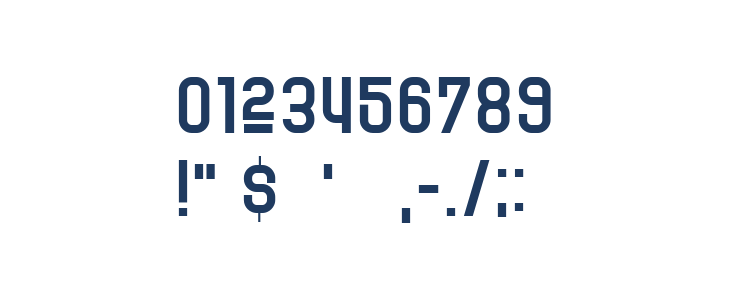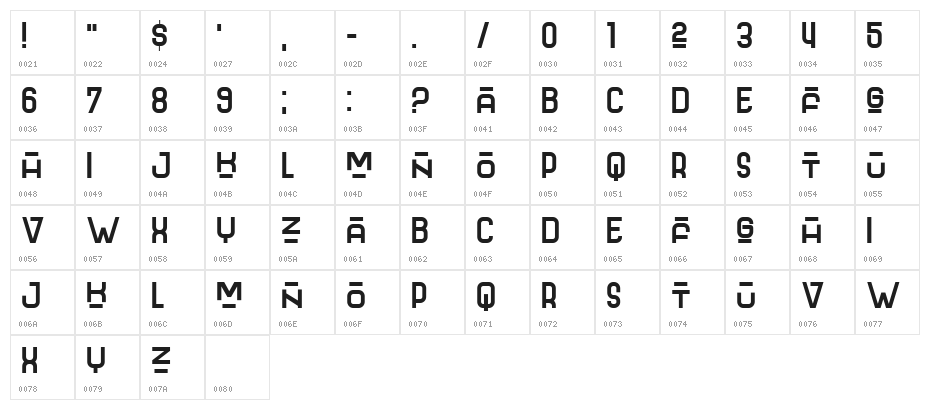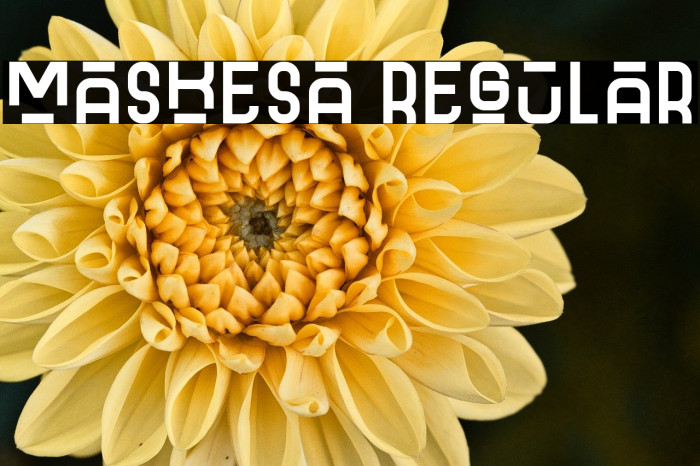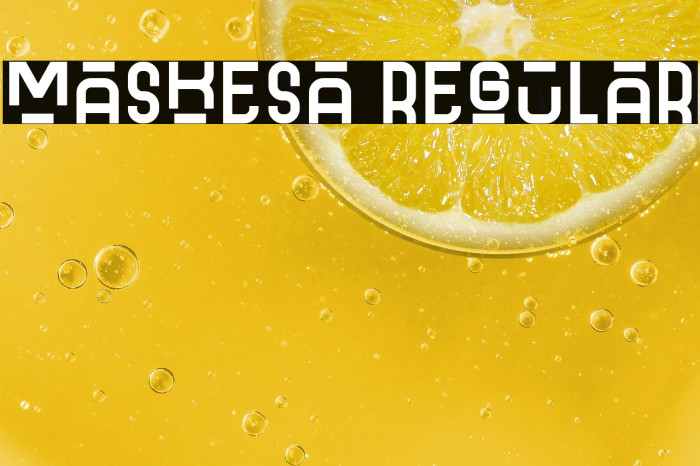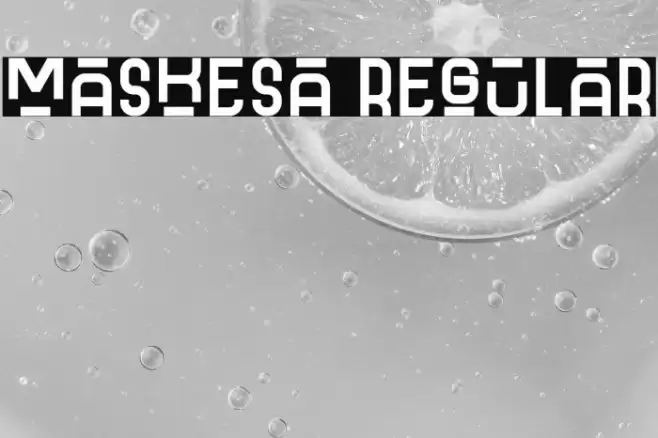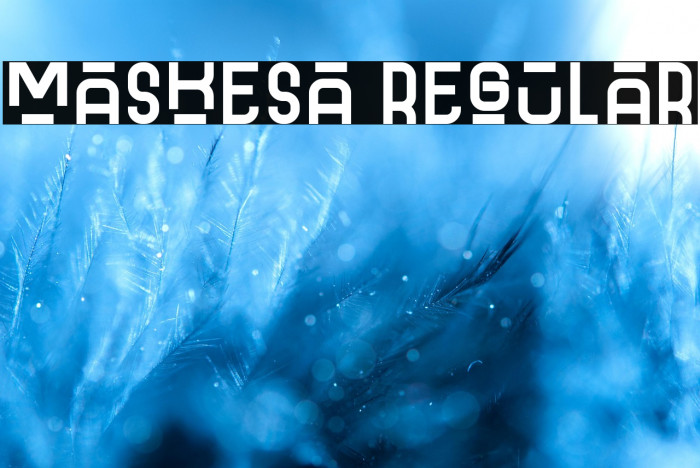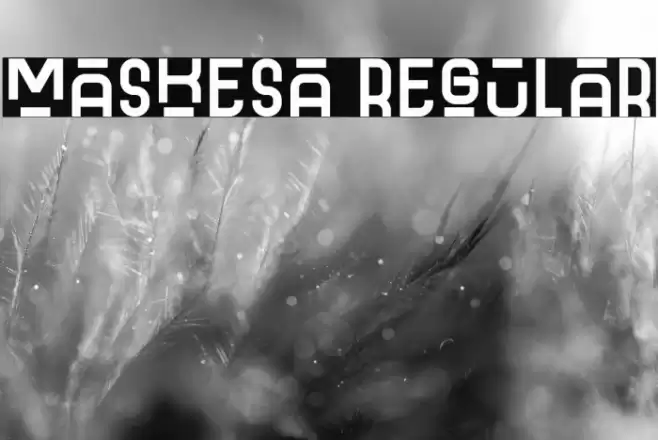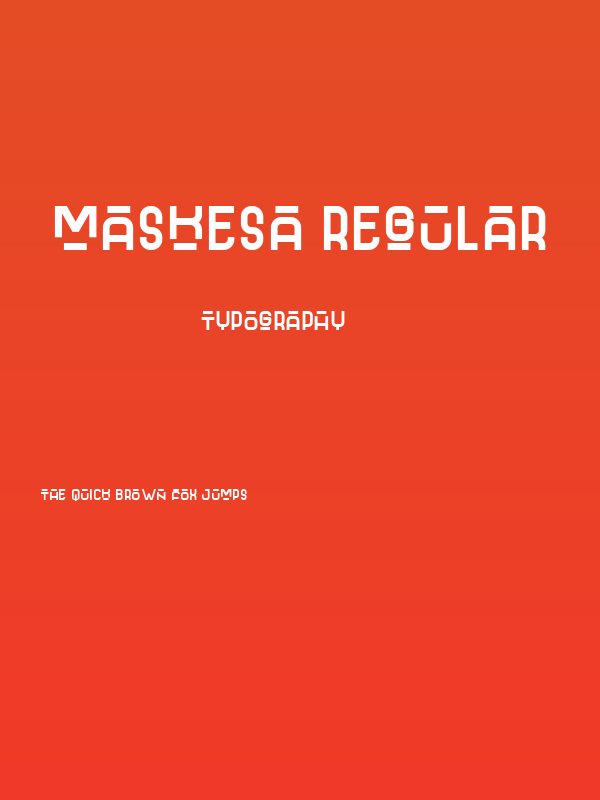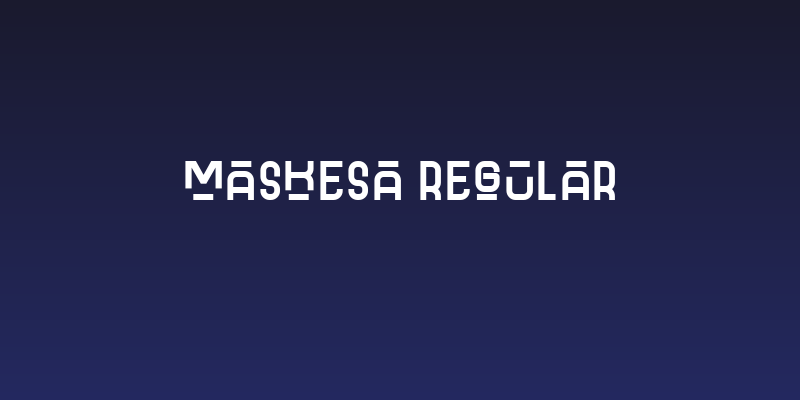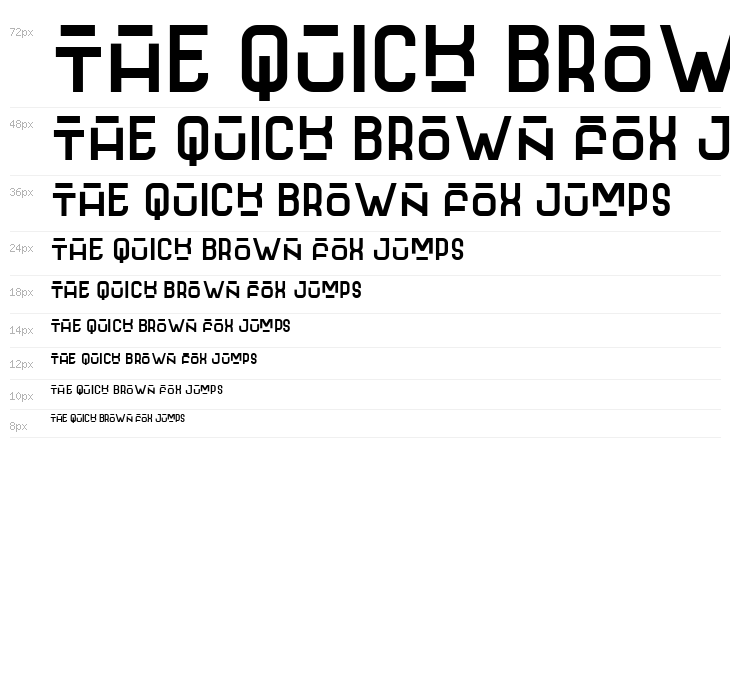
Maskesa Regular Font
Maskesa Regular Description
This font features a bold, geometric design with unique horizontal bars and accents on several characters, creating a futuristic and industrial feel. The uppercase letters are particularly striking with their strong lines and symmetrical forms, while the numerals maintain a consistent style that complements the alphabet. The special characters are distinct and maintain the overall aesthetic, making this font suitable for attention-grabbing designs. Its structured appearance suggests a modern and innovative approach, ideal for projects that require a strong visual impact.
| Proposed Projects | Ideal for branding, posters, and digital media where a modern and bold statement is needed. |